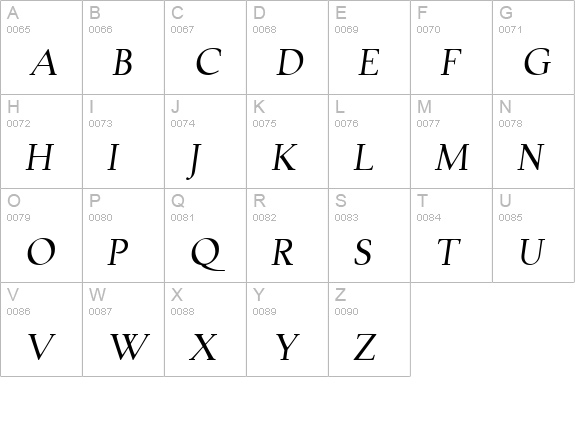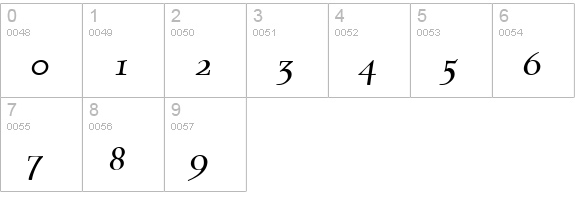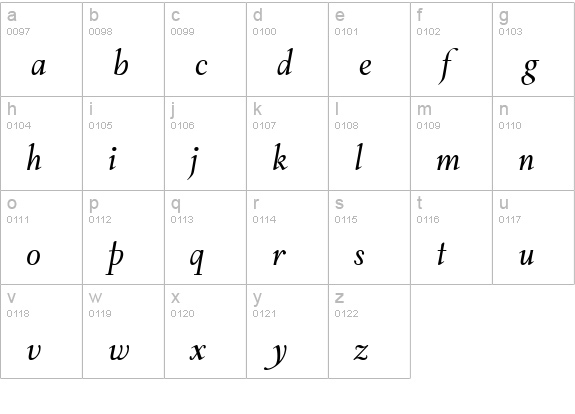
TaskItalic Font Details
Introducing TaskItalic font, a sleek and modern typeface designed to make your projects stand out with a touch of sophistication. The italicized style brings a sense of elegance and flair to your text, making it perfect for a wide range of design applications. Whether you're working on a professional presentation, creative branding, or elegant invitations, TaskItalic font will add a polished and refined look to your work. Best of all, TaskItalic font is available for free download at FontsMarket.com. This means you can easily access this stylish font to enhance your projects without any cost. Don't miss the opportunity to elevate your designs with the beauty and versatility of TaskItalic font. Download it today and start creating stunning visuals that leave a lasting impression.